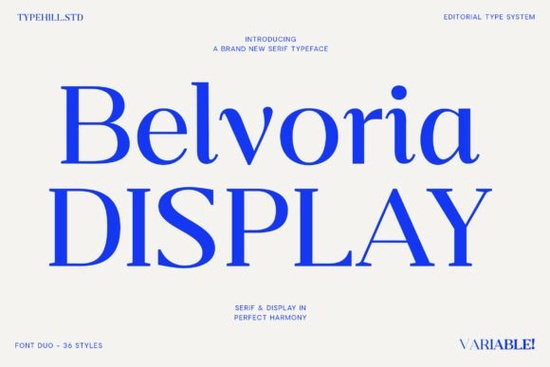
If you’re looking for a serif font that feels both classic and modern, Belvoria Font might be exactly what your next project needs. It’s not just another pretty typeface it’s built with real flexibility in mind, thanks to its variable font technology. Whether you’re designing a boutique brand identity, laying out a magazine spread, or creating packaging for a luxury product, Belvoria adapts without losing its refined character.
You’ve probably seen fonts like Linneva or Cornville around they each have their own charm. But Belvoria stands out because it lets you tweak weight, width, and slant smoothly, all within one file. That means fewer files to manage and more room to experiment. Even the italics feel intentional, not just slanted versions of the upright letters.
What kinds of projects is Belvoria best for?
It shines in editorial layouts think fashion magazines, book covers, or even high-end brochures. The letterforms are balanced enough for long paragraphs but detailed enough to make headlines pop. Small businesses using print-on-demand platforms also love it for mockups, labels, and social media graphics where elegance matters.
- Branding – Logos, business cards, and style guides benefit from its clean contrast and graceful curves.
- Packaging – Especially for beauty, wine, or artisanal goods where sophistication sells.
- Digital use – Websites and apps can take advantage of variable settings to adjust typography based on screen size or user preference.
- Crafting – SVG cut files, embroidery designs, or vinyl decals look polished with Belvoria’s structured serifs.
How does variable font tech help me as a designer?
Instead of installing ten different weights (Light, Regular, Bold, Black, etc.), you get one file that morphs between them. Need something slightly heavier than Medium but not quite Bold? Just drag a slider. This is especially handy when you’re tweaking comps for clients or testing how text looks across devices.
Compare that to something like Intellecta Typewriter, which has a fixed, mechanical vibe great for retro projects but less adaptable. Belvoria gives you room to fine-tune without switching fonts.
Is Belvoria easy to pair with other fonts?
Yes. Its neutral elegance makes it surprisingly versatile. Try pairing it with a clean sans-serif like Inter or Montserrat for contrast. Or go full classic by combining it with another serif maybe Linneva for body text if Belvoria is handling headlines.
Avoid pairing it with overly decorative scripts unless you’re going for deliberate drama. Belvoria already carries presence; you don’t need to compete with it.
Will this work for non-designers or hobbyists?
Crafters who make wedding invitations, custom quotes, or Etsy shop branding will find it adds instant polish. And since it’s readable at small sizes, it won’t let you down on tags, stickers, or product descriptions.
Any tips for getting the most out of Belvoria?
- Start subtle. Don’t crank the weight or width to extremes right away. Sometimes a 10% adjustment is all you need.
- Use italics intentionally. They’re not just for emphasis try them in pull quotes or secondary headings.
- Test readability. Print a sample or view it on mobile. Elegant doesn’t mean illegible.
- Save presets. If you land on a combo you love (say, SemiBold + Narrow), note the axis values so you can reuse them later.